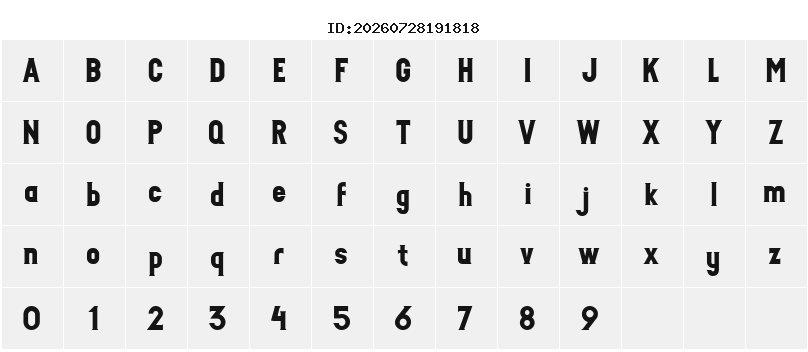
About IDAHO_Demo_Conrad_Garner.ttf
IDAHO_Demo_Conrad_Garner.ttf is a modern, elegant sans-serif font designed for ultimate readability and visual harmony. Perfect for branding, headlines, web design, and print materials.